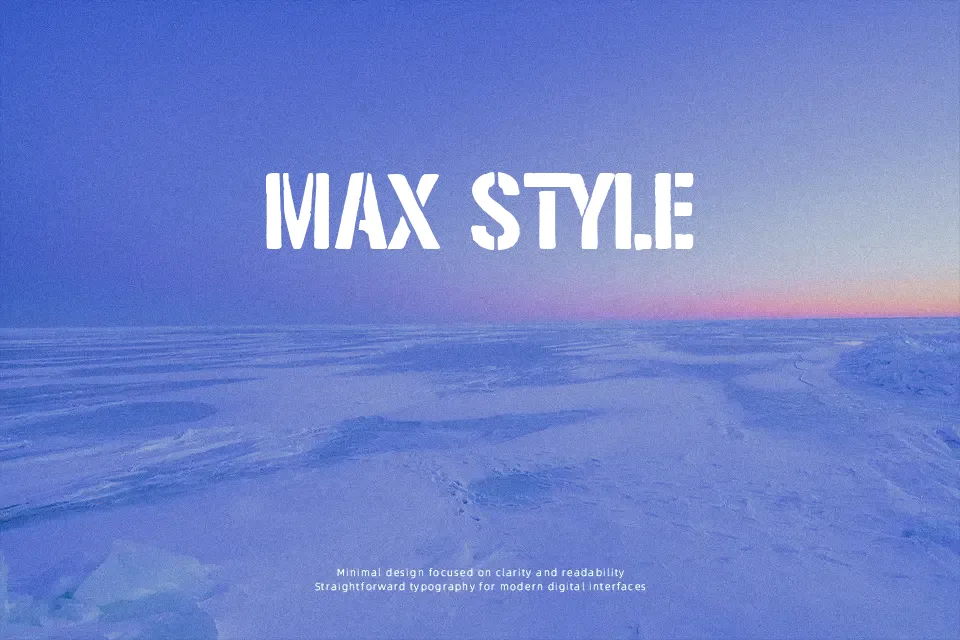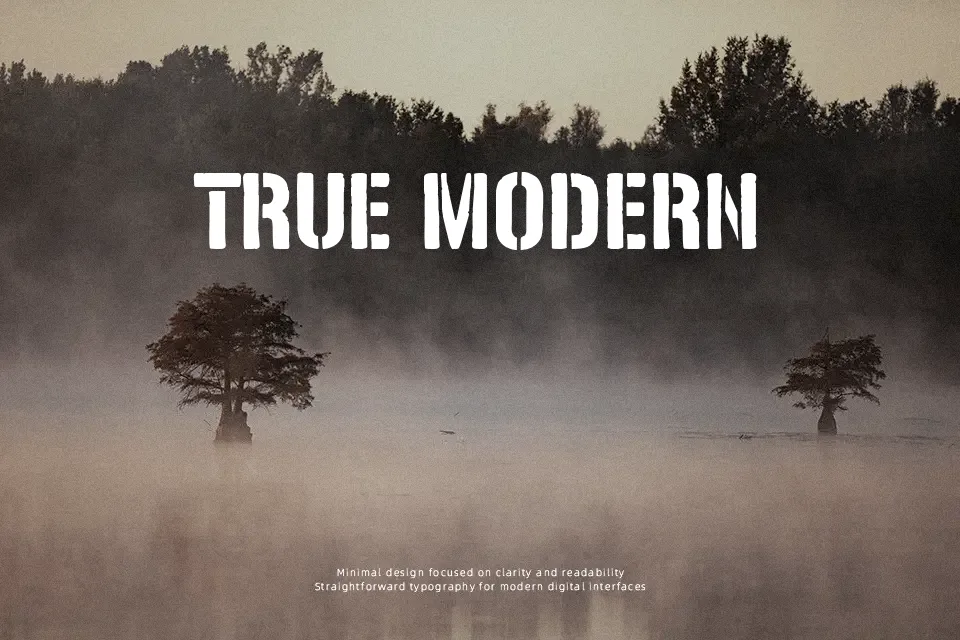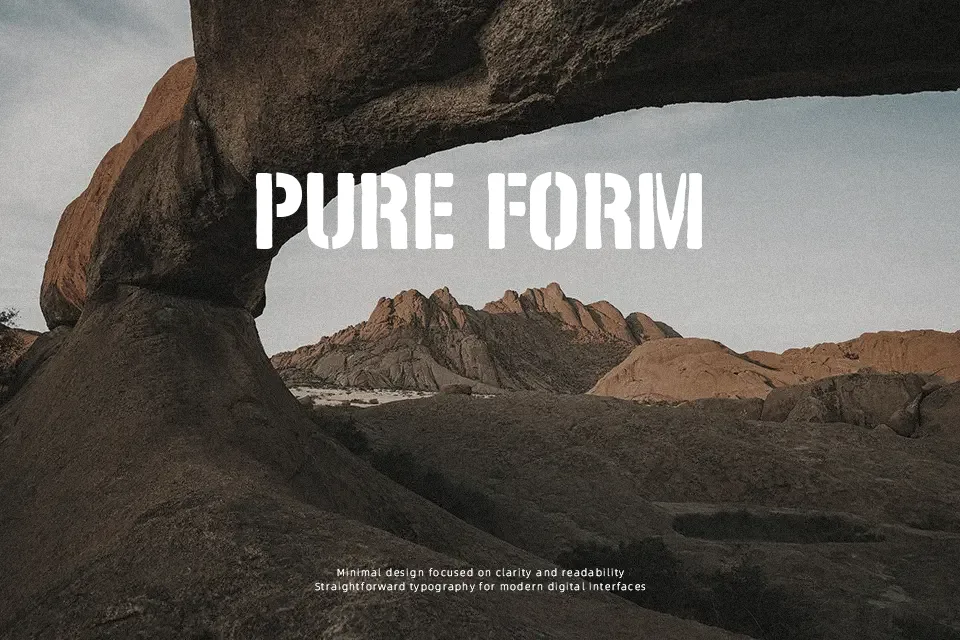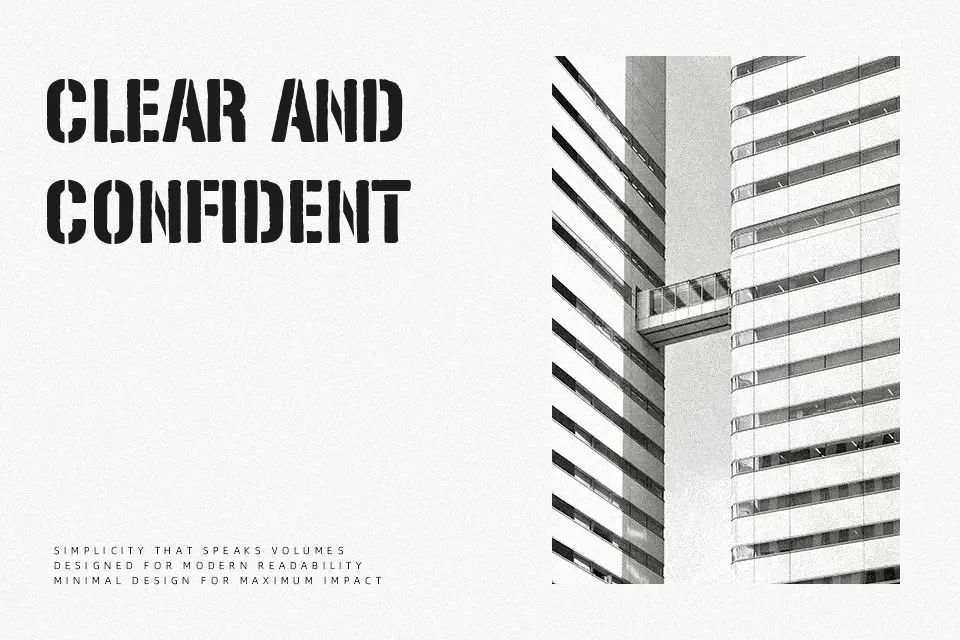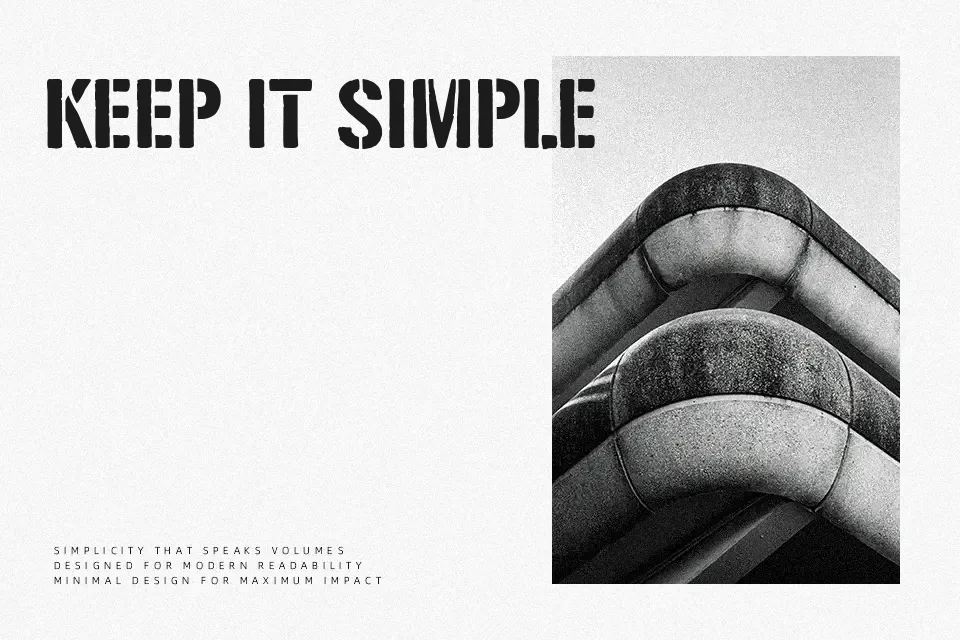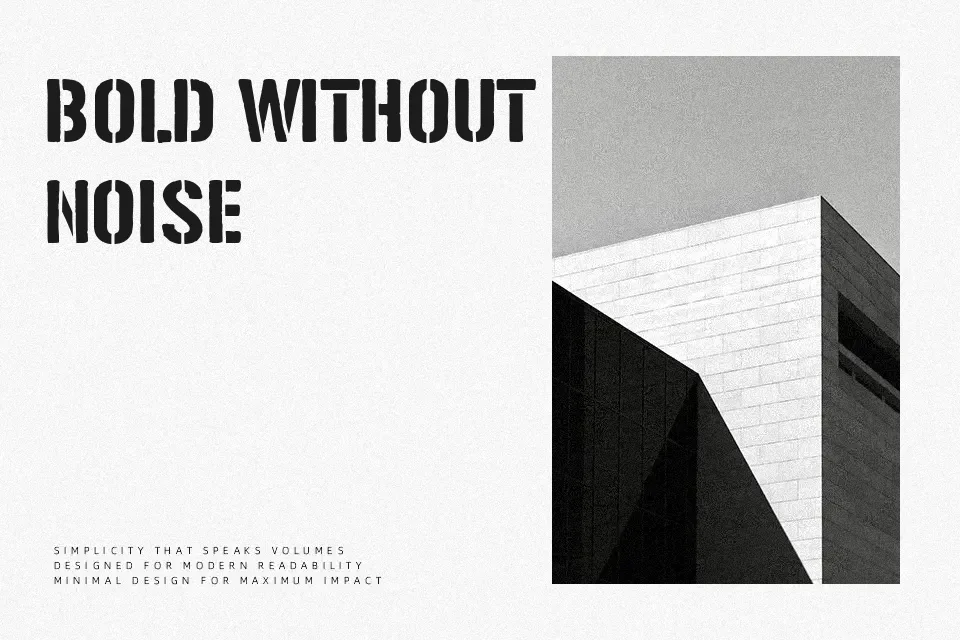
Solid Stencil 2023 Font
Solid Stencil 2023 Font presents an imposing display structure built around thick, uniform strokes and precise cutout breaks. Each glyph features balanced proportions and tight tracking that generate a powerful visual rhythm in short display settings. The clean stencil gaps prevent heavy characters from appearing congested while preserving strong contrast against backgrounds. In practice, the letterforms excel across warehouse signage, rugged packaging, and bold poster headlines where immediate authority is required. However, the heavy weight and segmented anatomy significantly hinder continuous reading comfort in body paragraphs, making the typeface poorly suited for dense editorial layouts or small caption text.
Best For: industrial packaging labels, warehouse signage, apparel graphics, poster headlines
Not Ideal For: continuous body text, mobile interface captions, dense editorial paragraphs, legal documentation